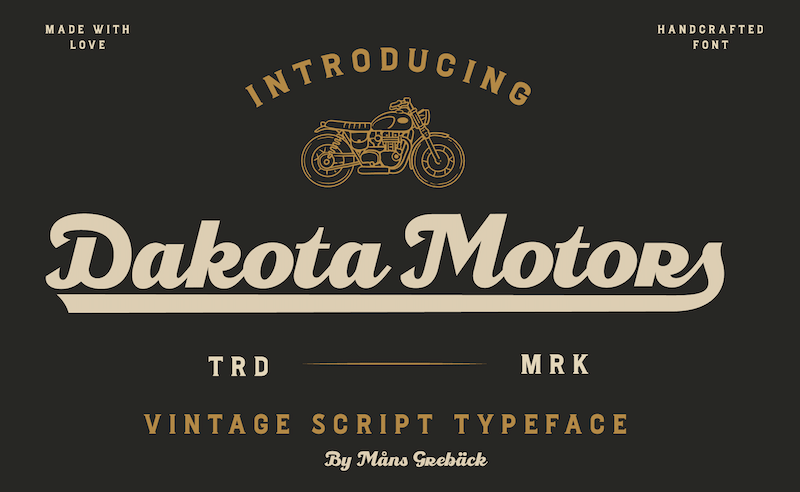
Font name: | Dakota Motors |
NOTE: This font is for PERSONAL USE ONLY! To purchase a commercial license, visit: http://mn.sg/dakota-motors Dakota Motors is a retro script font. It is expressive, and is constructed of sharp strokes and heavy letterforms. Use it for a cool logotype or headline to give your work that genuine look. Use underscore _ to make a swash. Example: Puch_ Use multiple underscores to make longer swashes. Example: RaceCar_____ (Download required.) For questions, please visit www.mansgreback.com/faq |